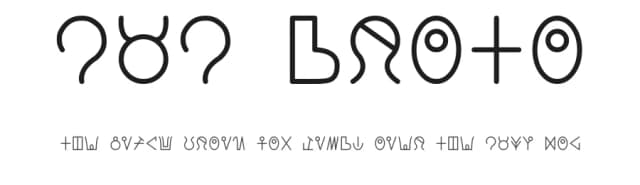
About Crypto Sans Font
Crypto Sans is a dingbat font designed by Heitor Berguerand. It includes 151 glyphs, a regular weight, TTF (TrueType) format, and 168 languages. Crypto Sans is free to download; check the license details on this page before commercial use. Dingbat fonts like Crypto Sans work best for icons, ornaments, bullet points, and decorative accents.
Crypto Sans Font is a versatile dingbats font that works for both headings and body text. Pair it with a contrasting sans-serif or serif font to add visual interest and a clear distinction between titles and body copy.